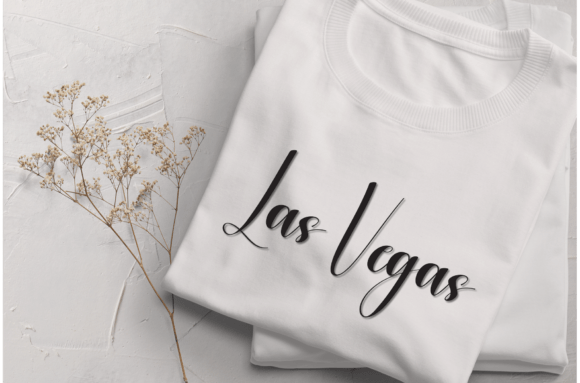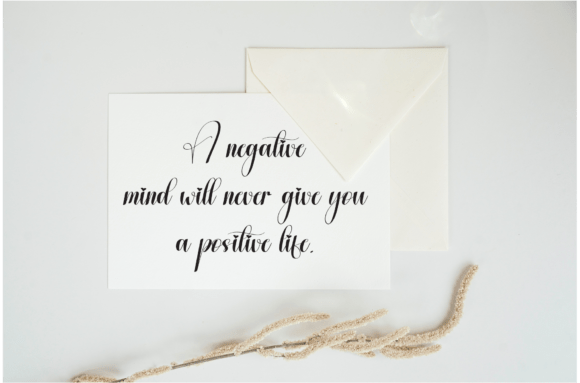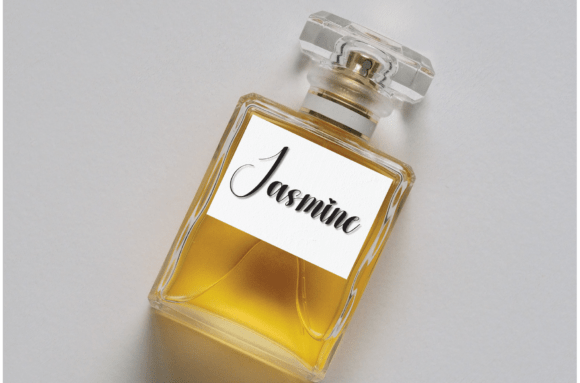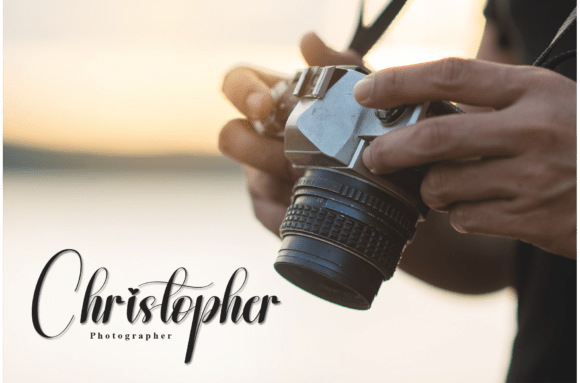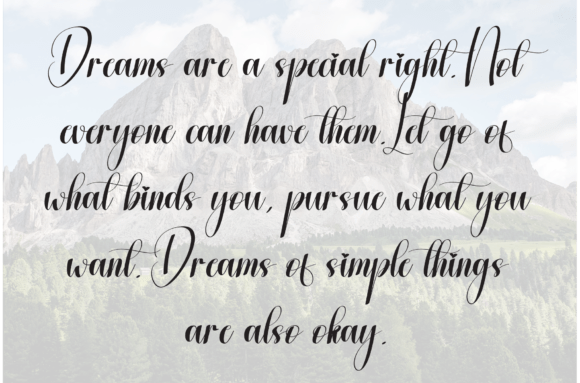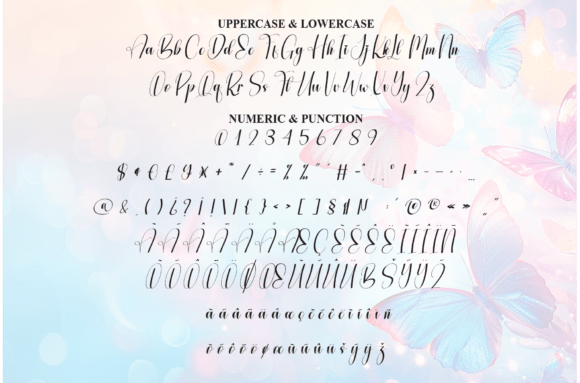
When Typography Flutters into Life
Have you ever stared at a blank page, pencil in hand, waiting for inspiration to strike? That’s where I was when I first discovered the Butterfly Font. The moment I saw its flowing strokes and elegant curves, I knew I was in for a treat.
The Butterfly Font is a stylish script font designed to add a touch of modern elegance to any design. Its expressive letterforms and natural rhythm make it perfect for logos, invitations, and social media graphics. With its refined details and versatility, this font is a valuable addition to any designer’s toolkit.
Whether you’re looking to create a unique brand identity or simply want to add some visual charm to your designs, the Butterfly Font is sure to flutter its way into your heart.
Key Features of Butterfly Font
- Unique Characteristics: The font features a distinctive, hand-drawn style with intricate details and flourishes, making it ideal for creative and artistic projects.
Butterfly Font Review
At first glance, the Butterfly Font seems like a whimsical and delicate addition to any design project. ✨ The flowing curves and organic shapes evoke a sense of freedom and lightness, perfect for conveying a sense of joy or wonder.
One of the standout features of this font is its versatility. It can be used in a variety of contexts, from children’s books to wedding invitations, and everything in between. ✨ The font is also highly customizable, with a range of styles and sizes to choose from.
- Delicate, whimsical curves
- Versatile in its applications
- Fits well with a variety of design styles
- May not be suitable for formal or professional contexts
- Can be difficult to read in small sizes or at a distance
- May not be as effective in bold or headline uses
Overall, the Butterfly Font is a lovely addition to any design project that requires a touch of whimsy and playfulness. While it may not be the best choice for every situation, it’s a great option for designers looking to add some visual interest to their work.
To get the most out of the Butterfly Font, try combining it with other creative elements, such as illustrations or graphics. You can also experiment with different font sizes and colors to create a unique visual effect.
The Butterfly Font is commonly used for creative projects, such as invitations, greeting cards, and social media graphics. It’s also suitable for use in children’s books and educational materials.